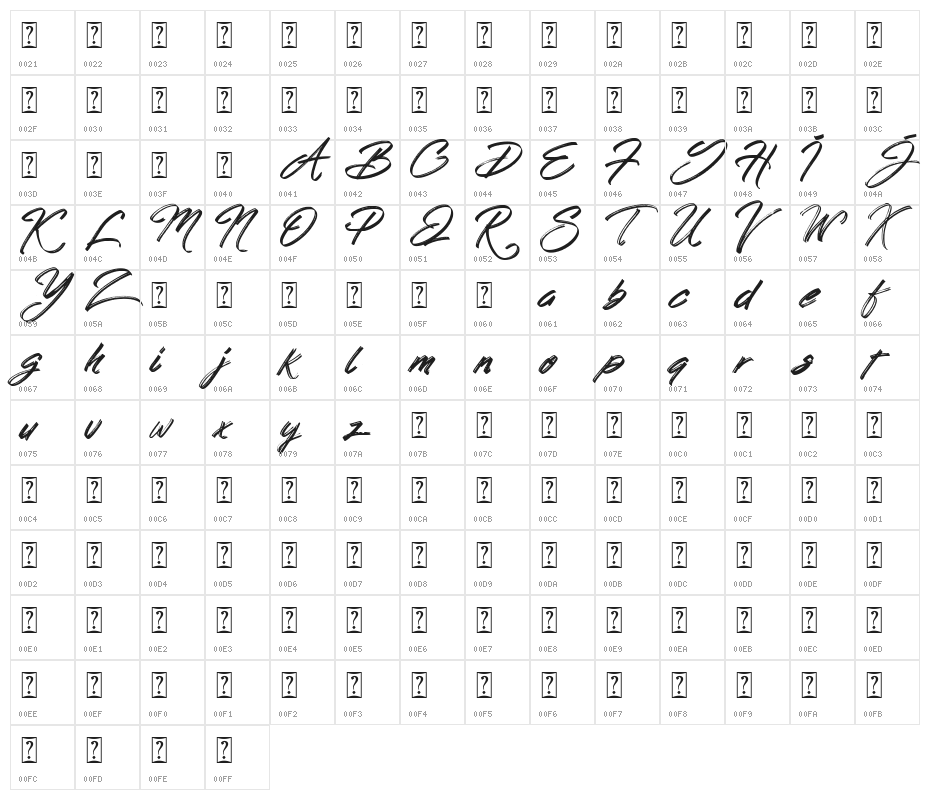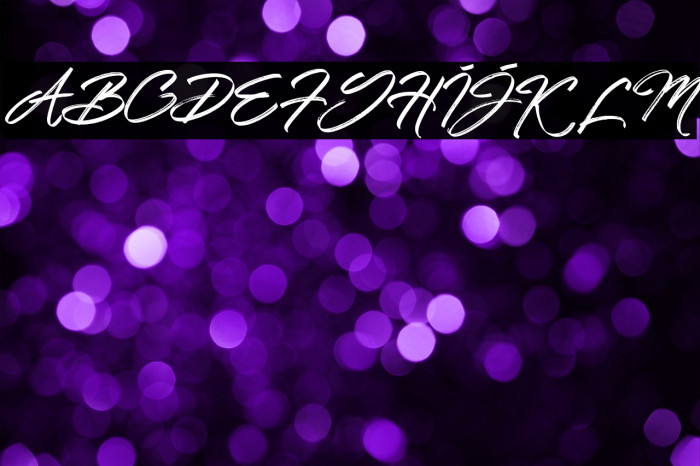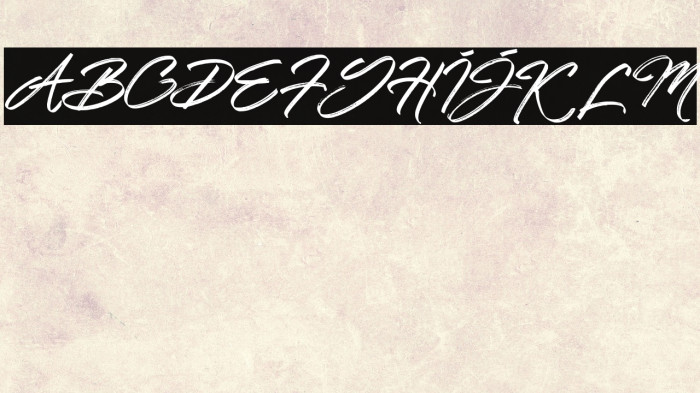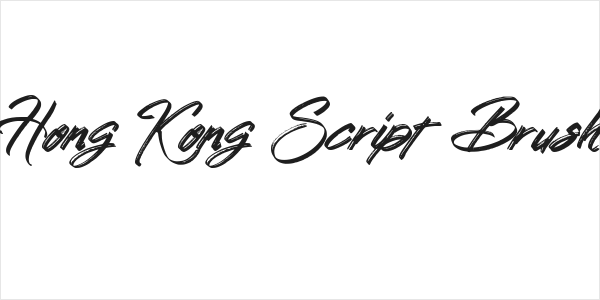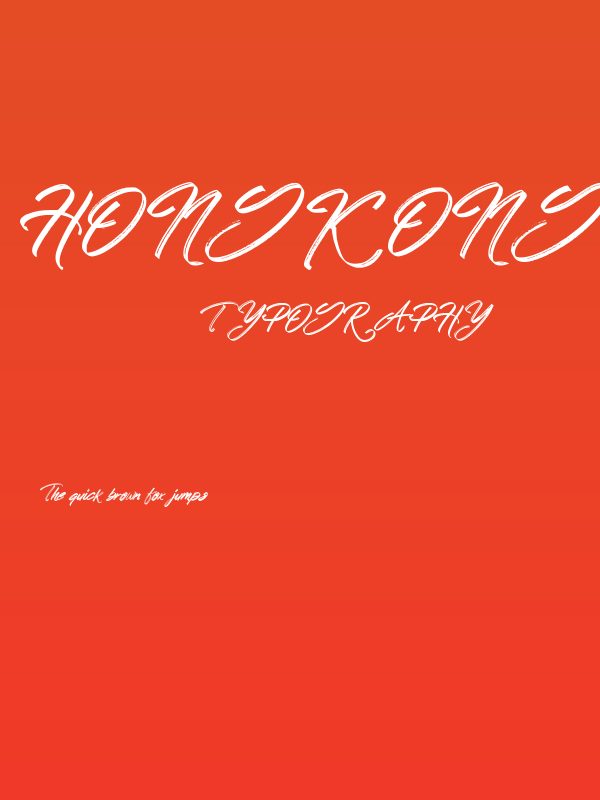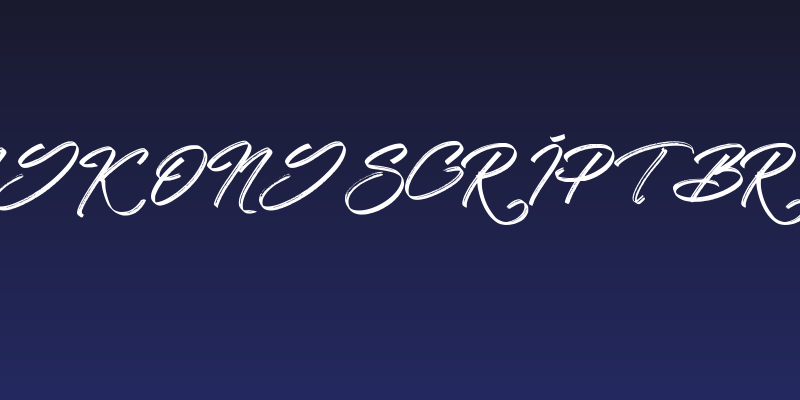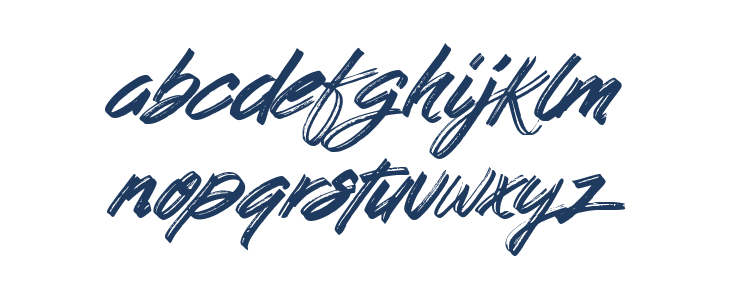
Hong Kong Script Brush Font
Hong Kong Script Brush Description
This font exudes a dynamic and energetic style, characterized by its brush script appearance. The letters are crafted with a fluid, hand-drawn quality, featuring bold strokes and a sense of motion. The uppercase letters are slightly more restrained, yet maintain the same lively flair, while the lowercase letters exhibit a more pronounced cursive style. The overall design is reminiscent of traditional calligraphy, with a modern twist that adds a touch of elegance and spontaneity. The font's unique character is further enhanced by the irregularities in stroke width, giving it a natural and authentic feel.
| Proposed Projects | Ideal for branding, packaging, invitations, and any project requiring a personal, artistic touch. |